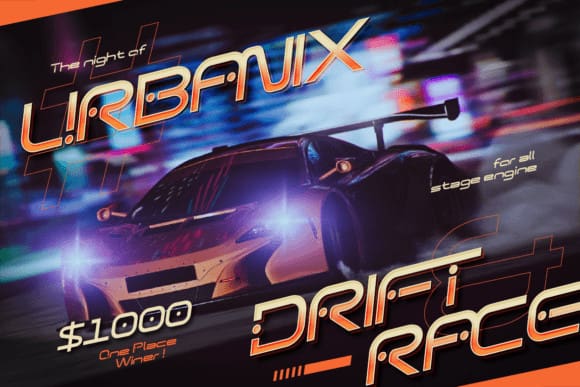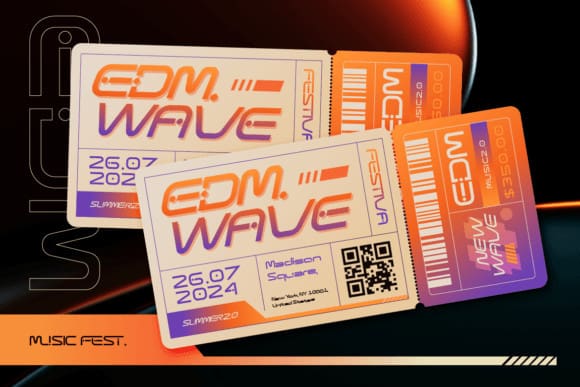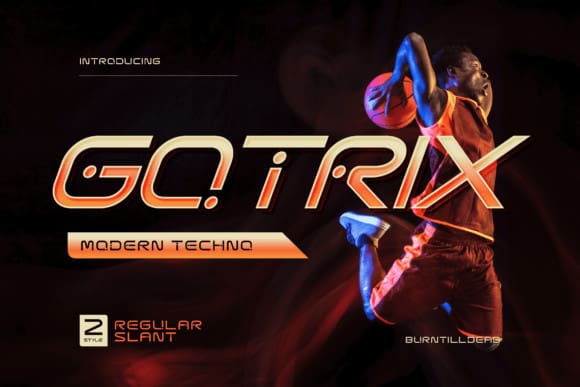
Gotrix Techno Font
Gotrix Techno Font, the modern techno typeface that represent of futuristic design. The cutting edge with geometric shapes and high tech vibe, make this typeface perfect for creating a modern and forward-looking visual identity such as technology branding, sci-fi themes, digital interfaces and innovative product design. This typeface have regular, outline and slant style, so let’s step into the future with Gotrix!